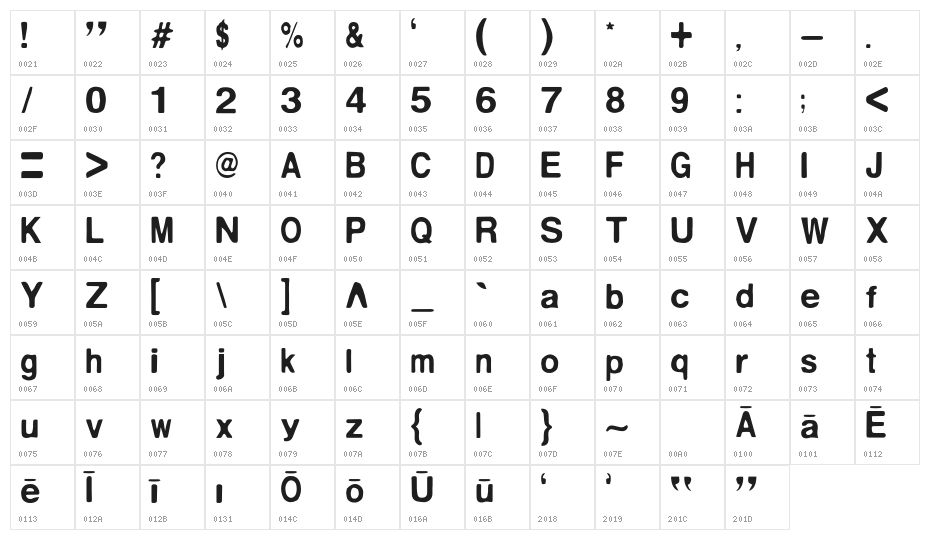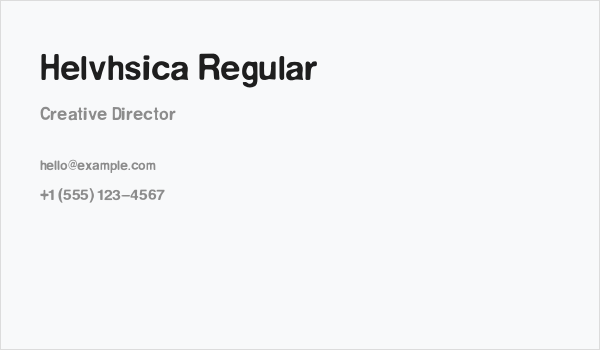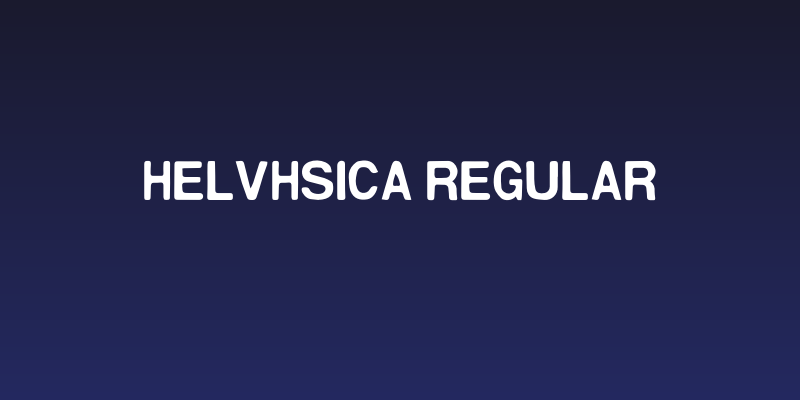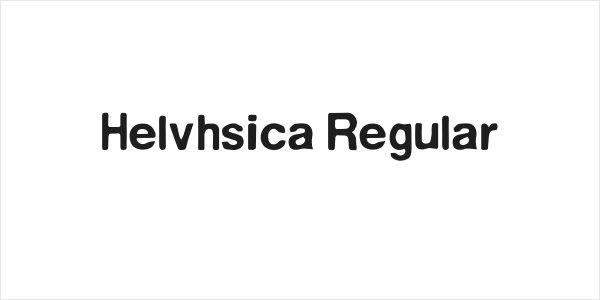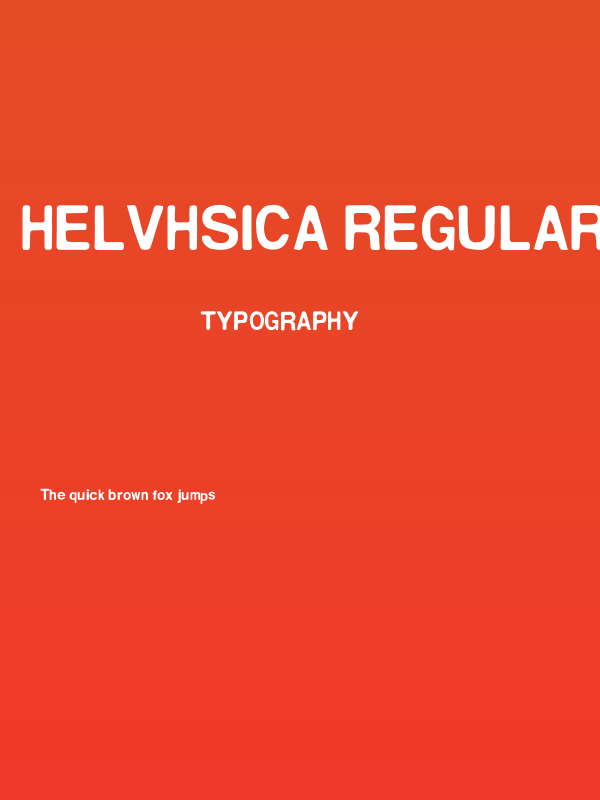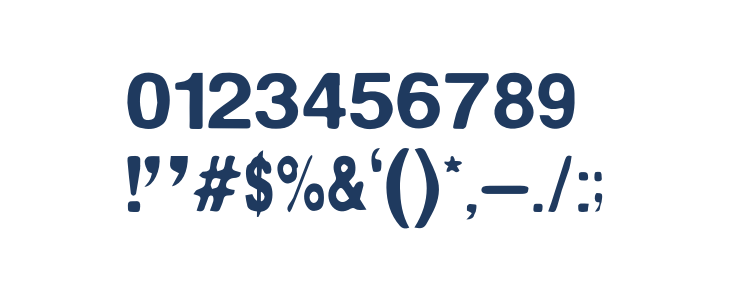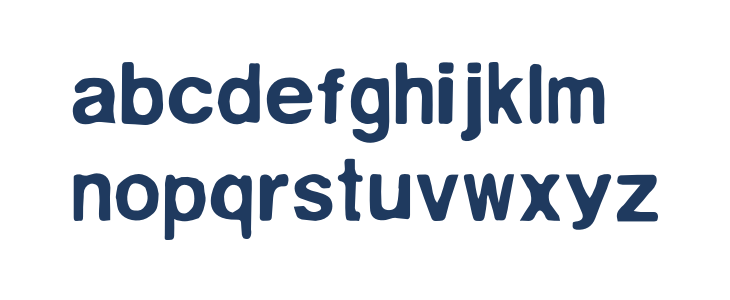
Helvhsica Regular Font
Helvhsica Regular Description
This font features a clean and modern sans-serif style with rounded edges, giving it a friendly and approachable appearance. The characters are well-proportioned, with a consistent stroke width that contributes to its readability. The uppercase letters are bold and prominent, while the lowercase letters maintain a balanced and harmonious look. The numerals are clear and distinct, making them suitable for various applications. Special characters are included, offering versatility for different design needs. Overall, this font exudes a contemporary and professional vibe, making it ideal for both digital and print media.